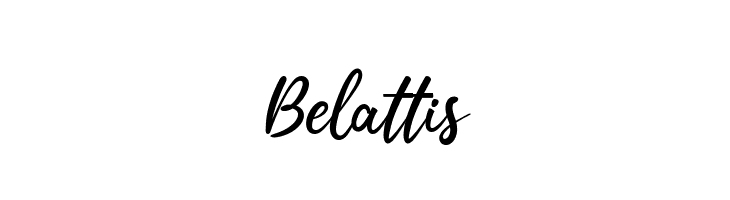
A playful, handwritten script font with bold, energetic characters.
An elegant, flowing script font with decorative flourishes and a handwritten style.
A playful and casual handwritten font with fluid strokes.
A flowing, cursive font with elegant and sophisticated styling.
A bold, handwritten font with a playful and energetic style.
A dynamic and expressive handwritten font with fluid, irregular strokes.
A bold, playful font with rounded, hand-drawn strokes.